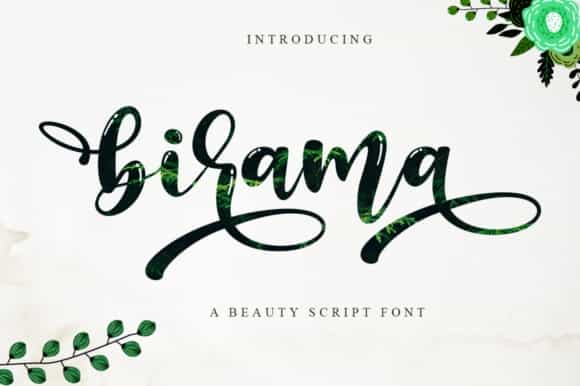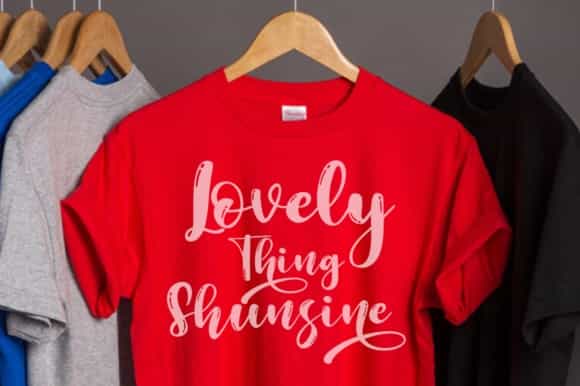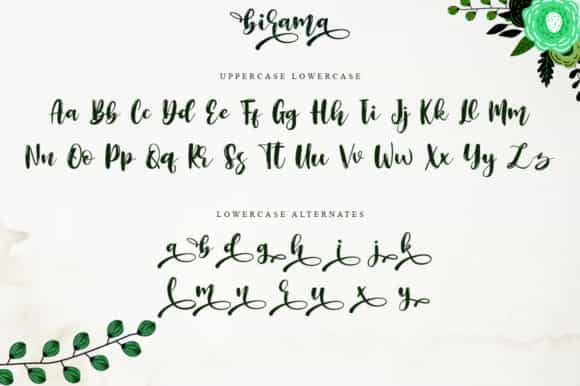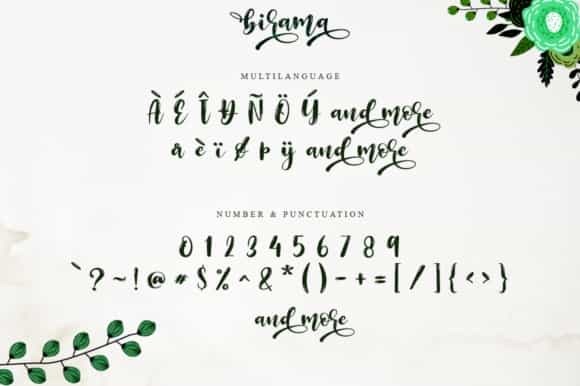
Birama is a beautiful type of font in calligraphy script with a cheerful and lively feel and a baseline that seems to jump up and down. It is very straightforward and fast, and hence suitable for branding, logos and greeting cards or Wedding Stationery or Quotes. This font contains useful OT stylized Alternates Ligatures and supports a range of languages.